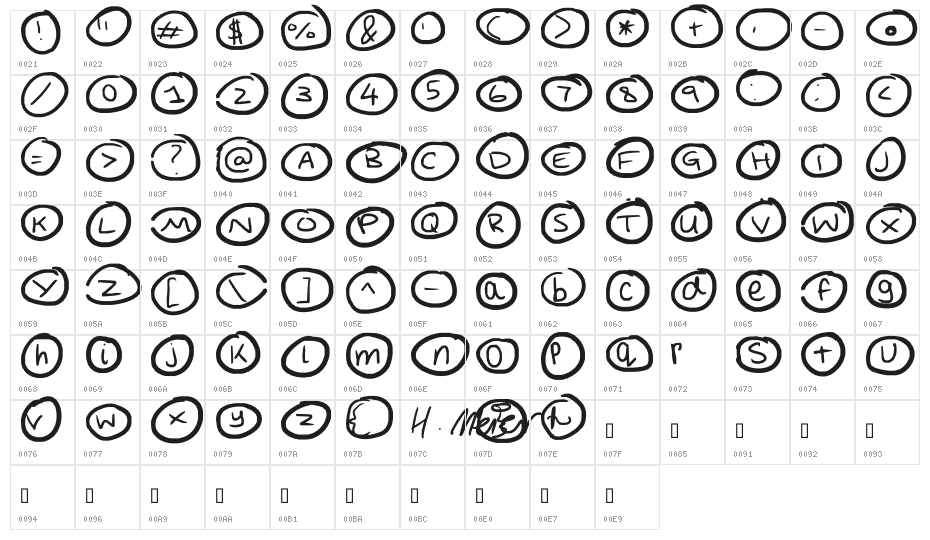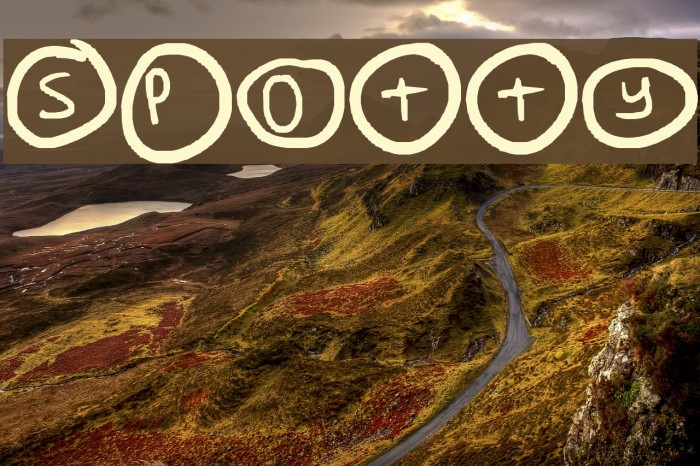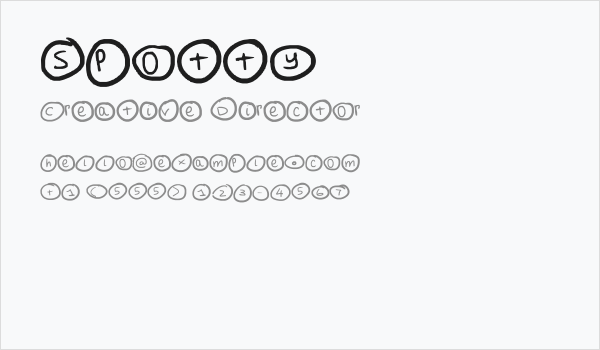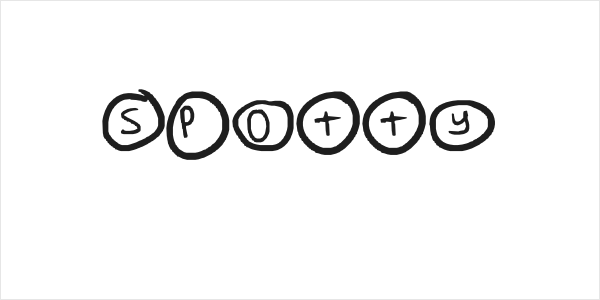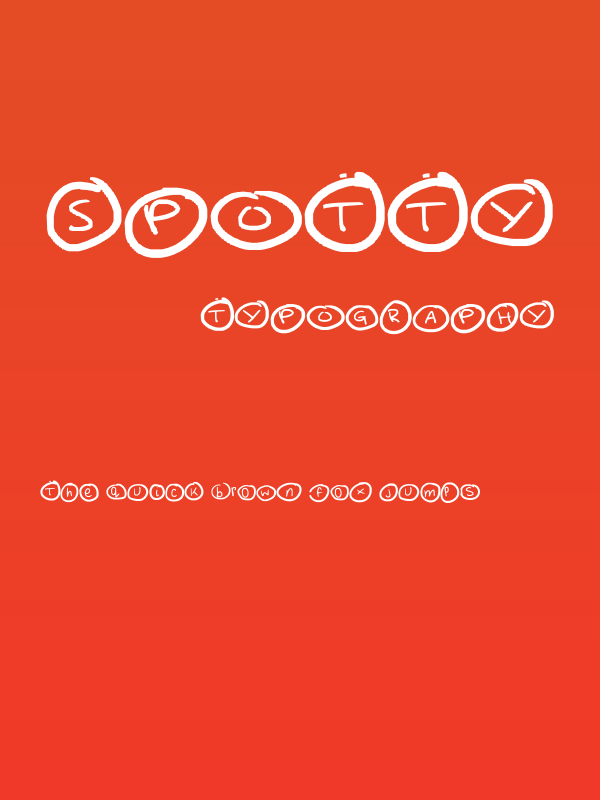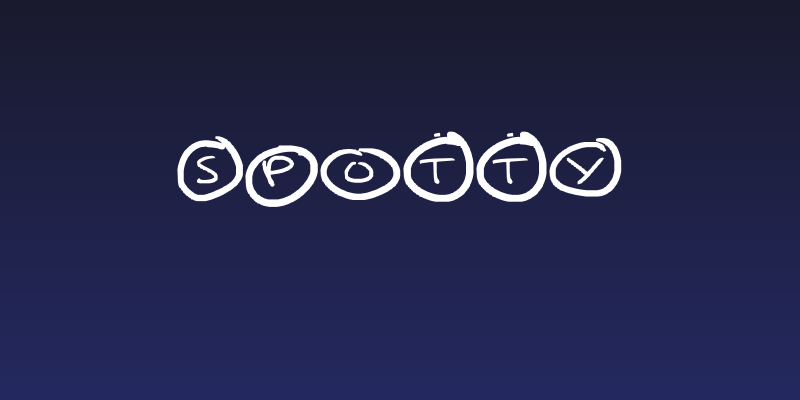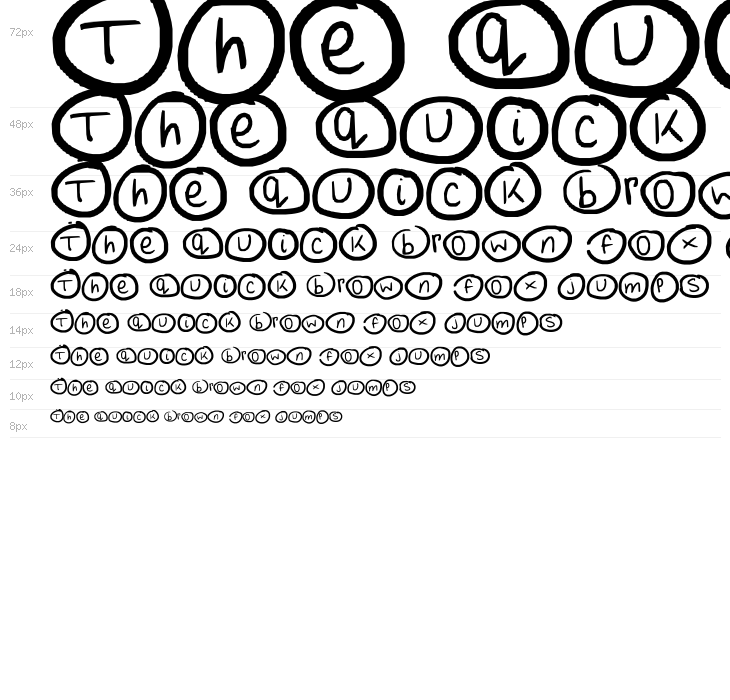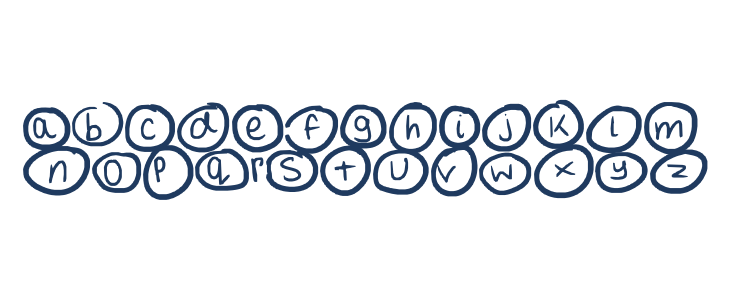
Spotty Font
Spotty Description
This playful and whimsical font features characters enclosed in irregular, hand-drawn circles, giving it a casual and fun appearance. The letters are bold and rounded, with a slightly uneven stroke that adds to its charm. The font maintains a consistent style across uppercase, lowercase, numbers, and special characters, making it versatile for various creative projects. Its unique design is reminiscent of doodles or sketches, perfect for informal and lighthearted contexts.
| Overall Style | Whimsical, Casual |
| Proposed Projects | Ideal for children's books, playful branding, greeting cards, and casual event invitations. |